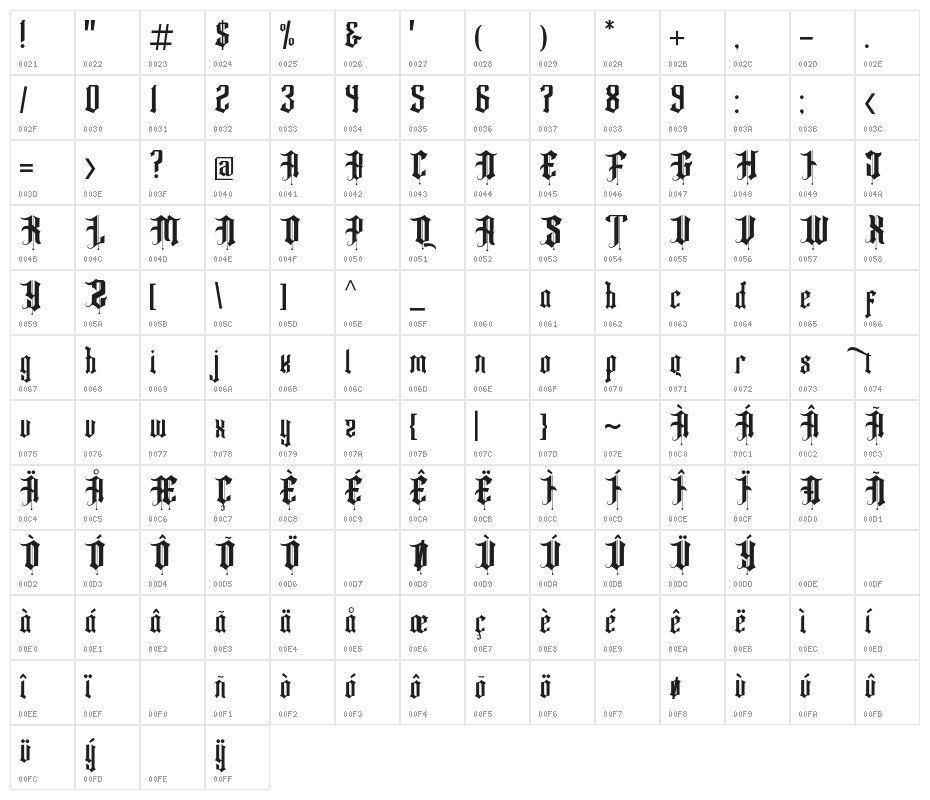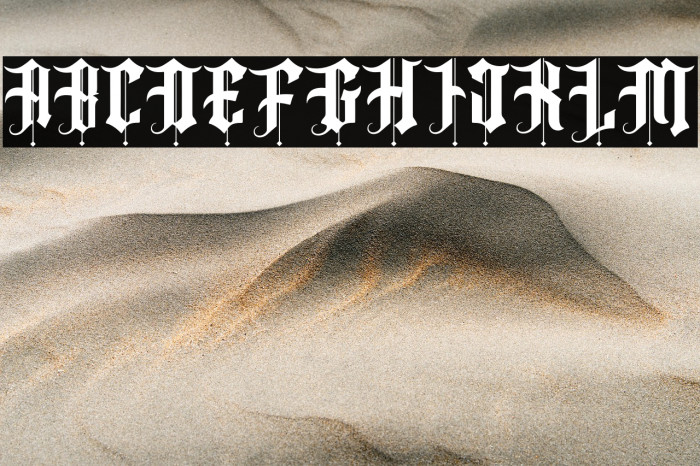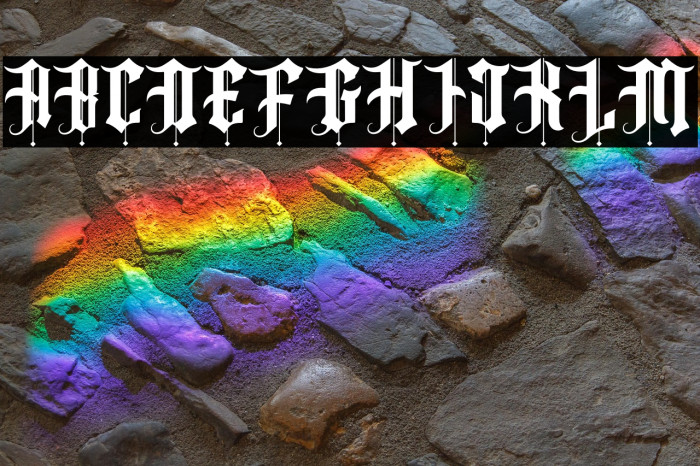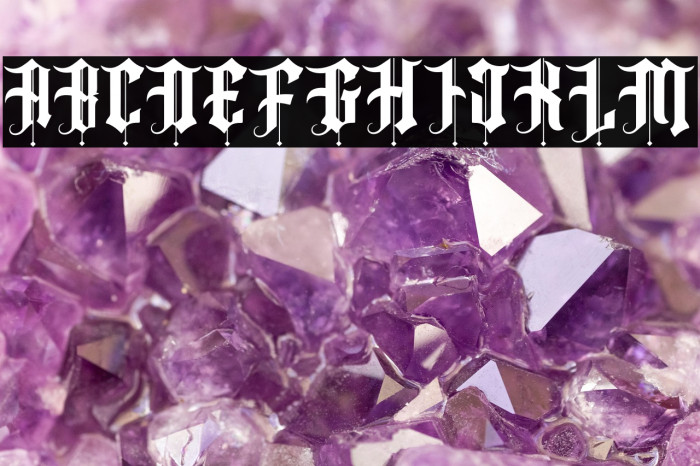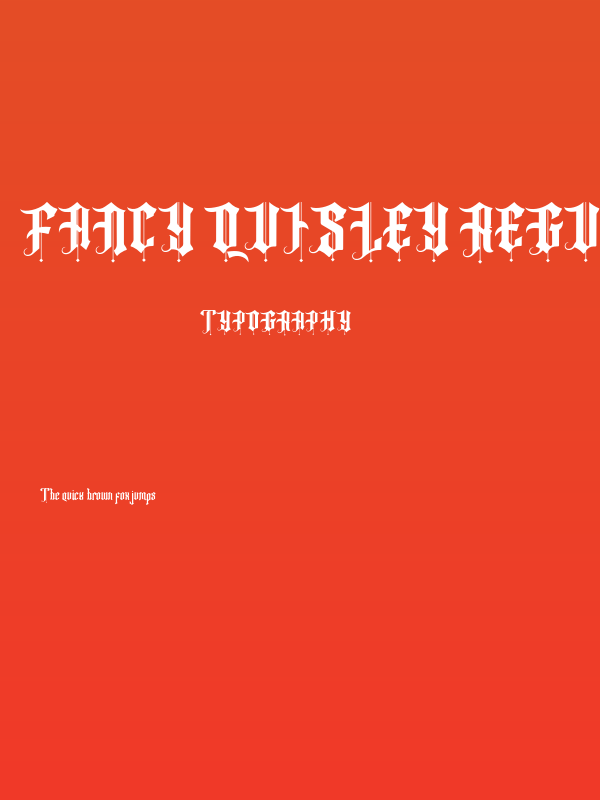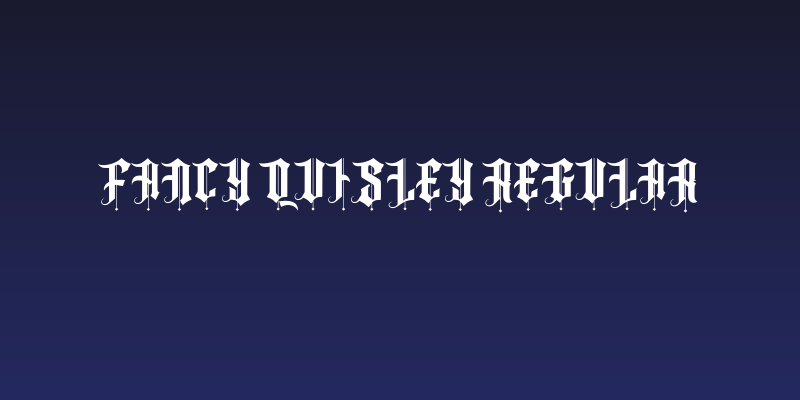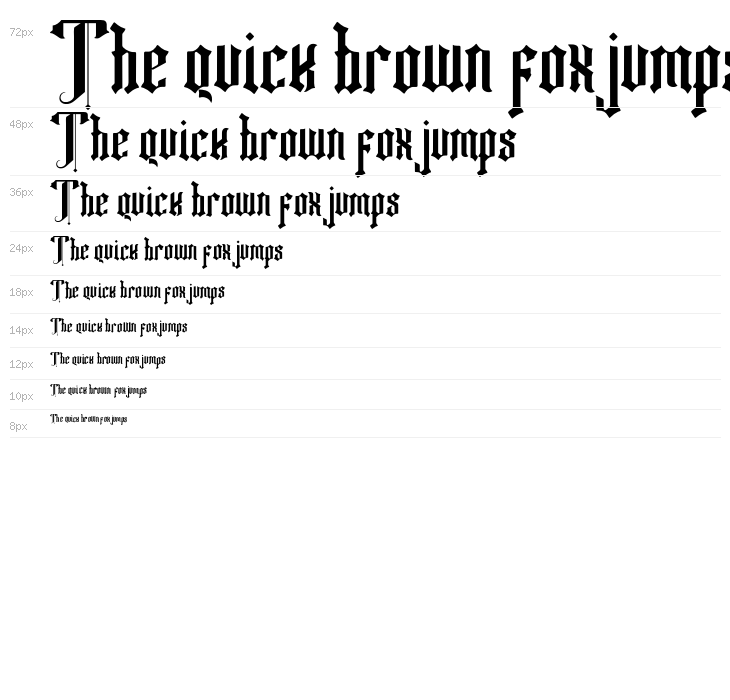
Fancy Quisley Regular Font
Fancy Quisley Regular Description
This font features a bold and intricate design reminiscent of traditional Blackletter styles. The characters are highly decorative, with sharp angles and elaborate serifs that give it a gothic and medieval appearance. The uppercase letters are particularly ornate, with extended strokes and flourishes that add to the dramatic effect. The lowercase letters maintain the same level of detail, ensuring consistency throughout the typeface. Numbers and special characters are equally stylized, making this font suitable for projects that require a historical or formal aesthetic.
| Use Case | Headlines, Logos, Decorative text |
| Proposed Projects | Ideal for use in historical documents, wedding invitations, certificates, branding for luxury products, or any project that requires a touch of elegance and tradition. |